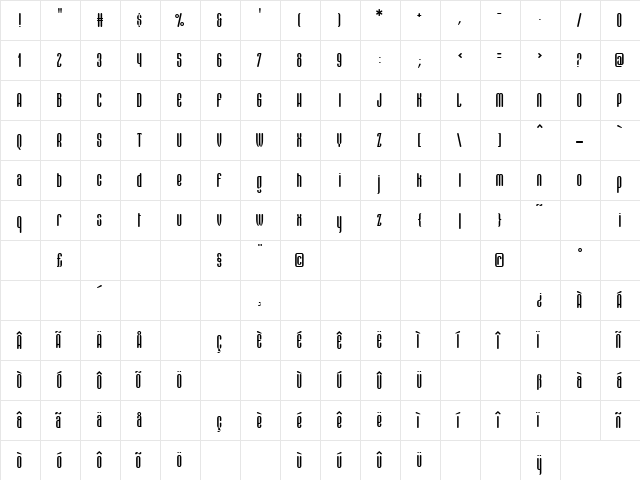
BattleStation Regular
BattleStation is a composed and adaptable typeface that performs quietly and consistently across a wide range of design contexts.